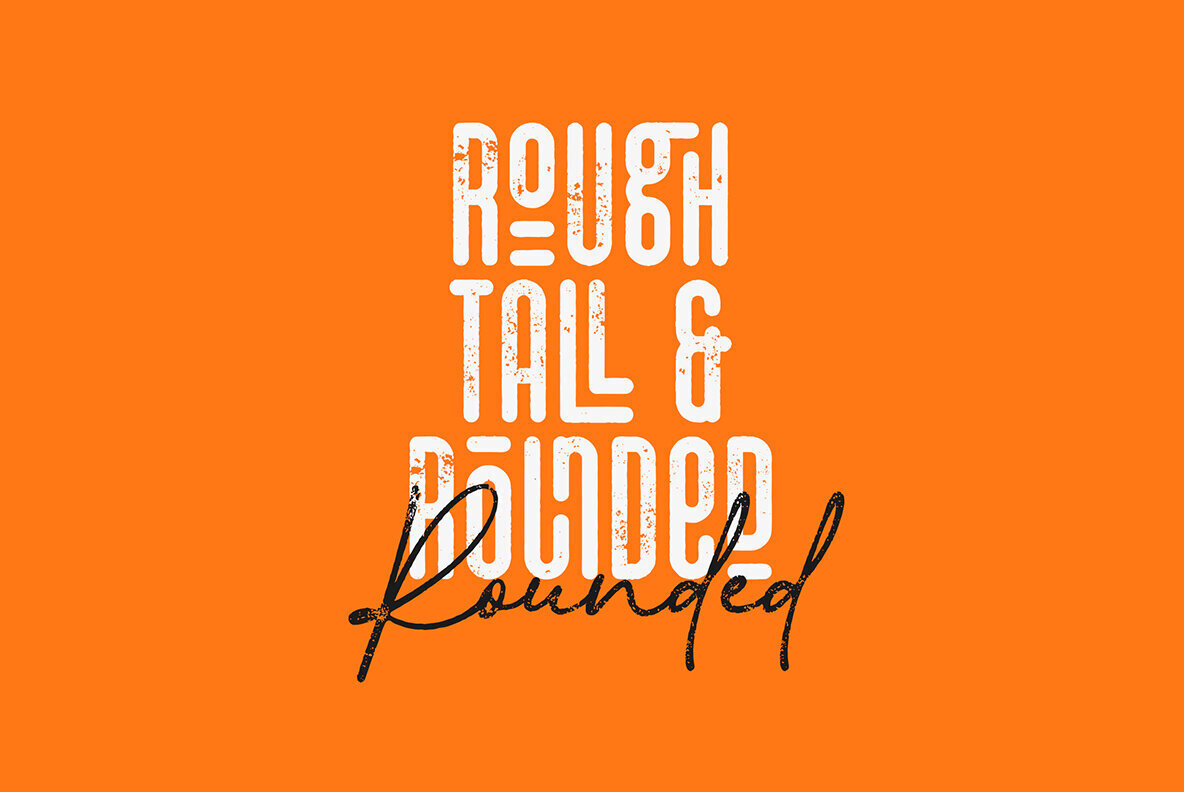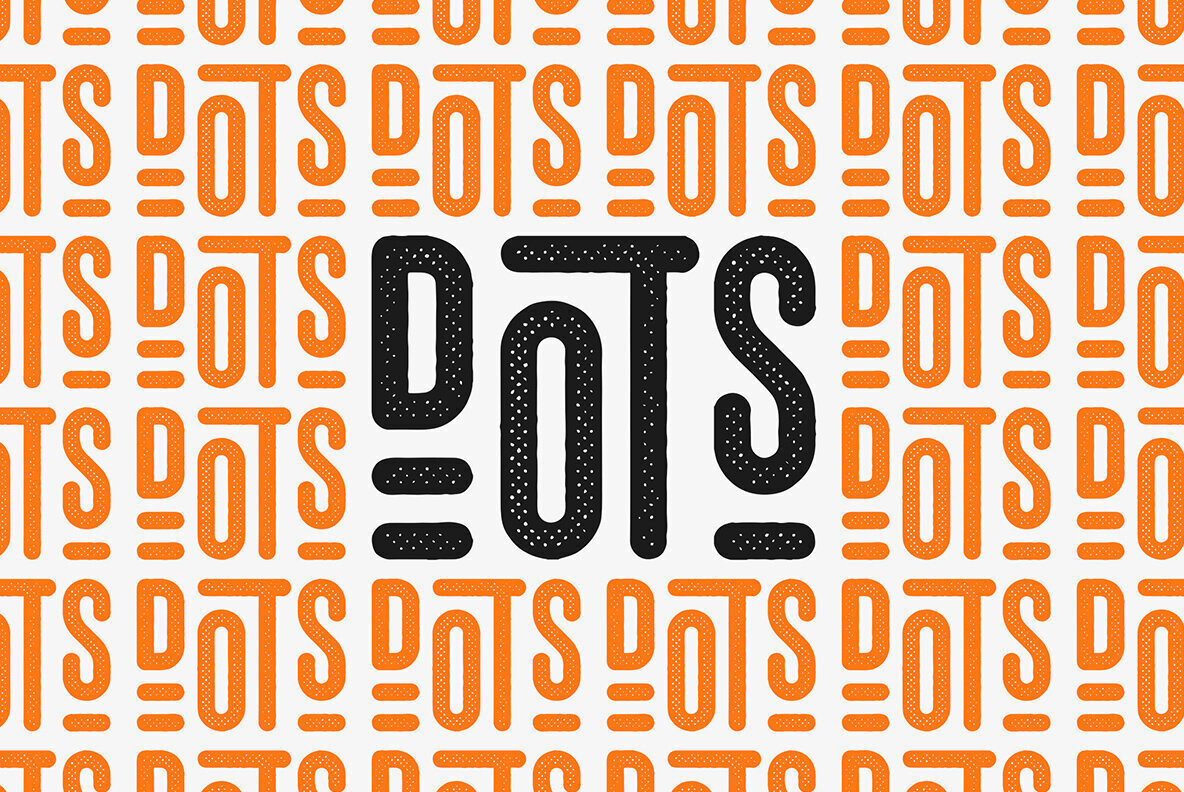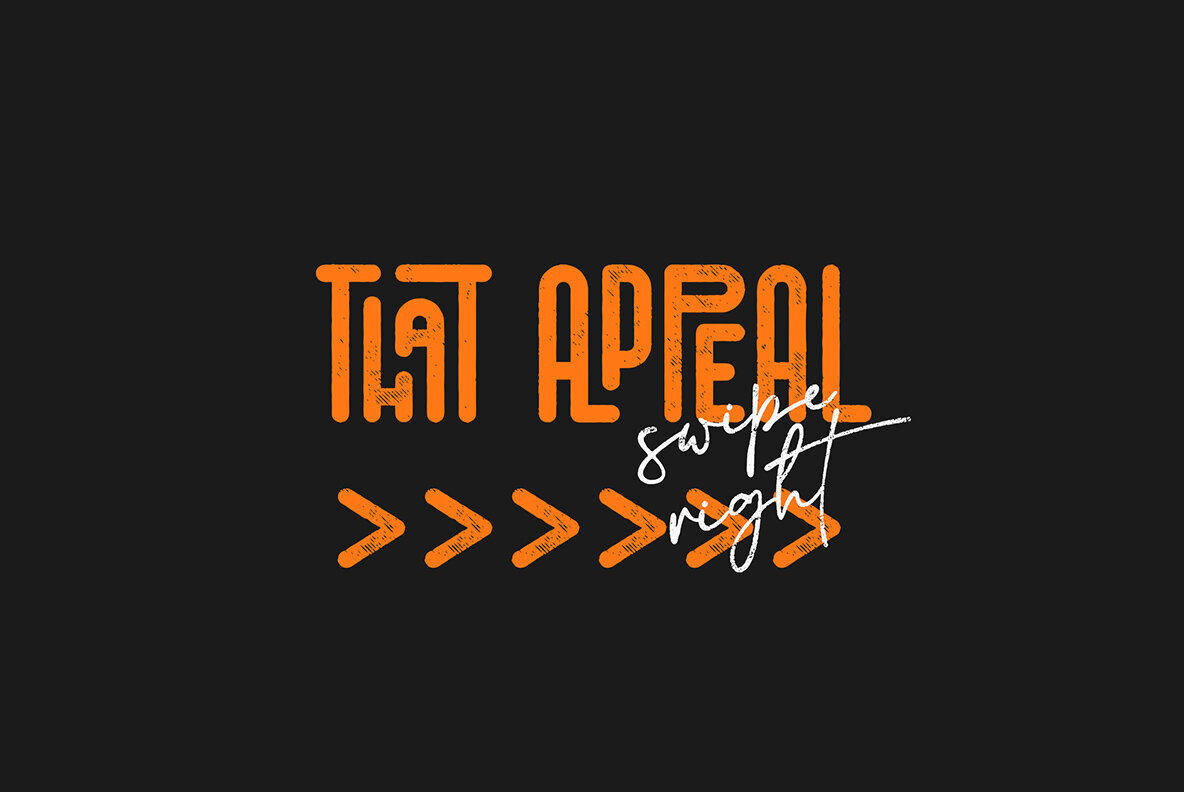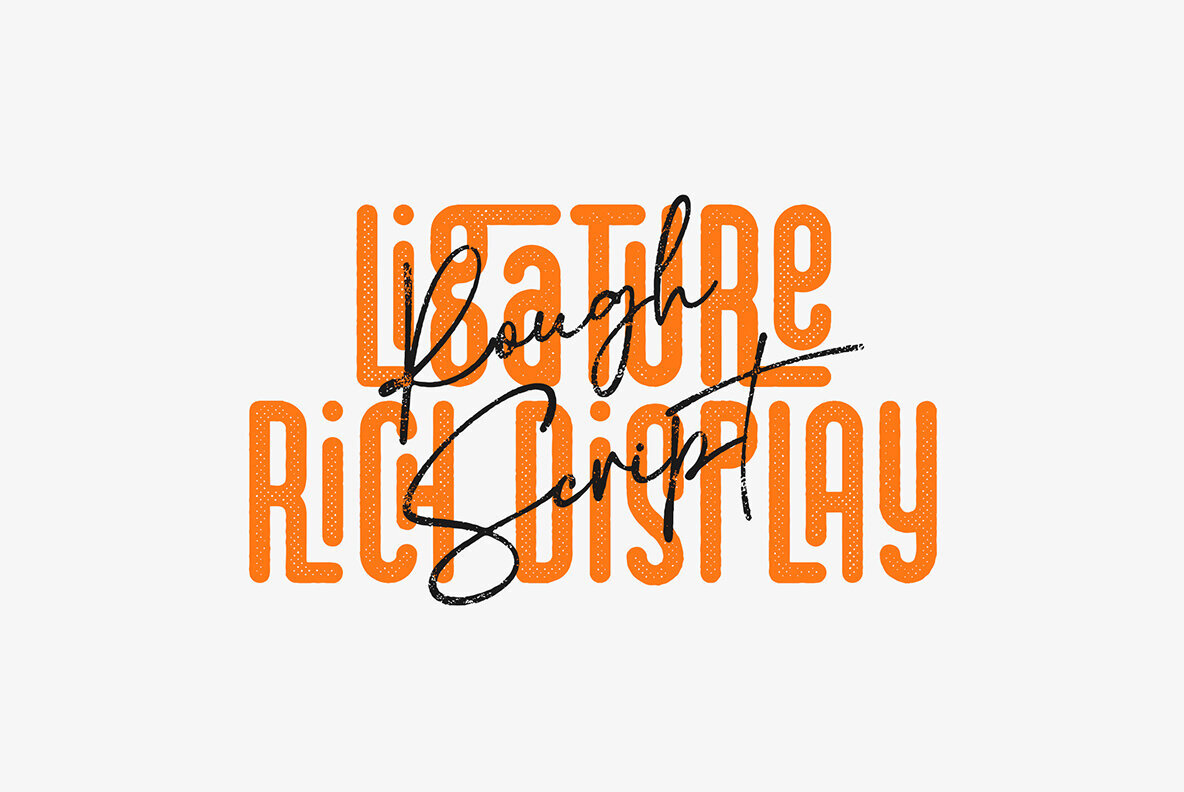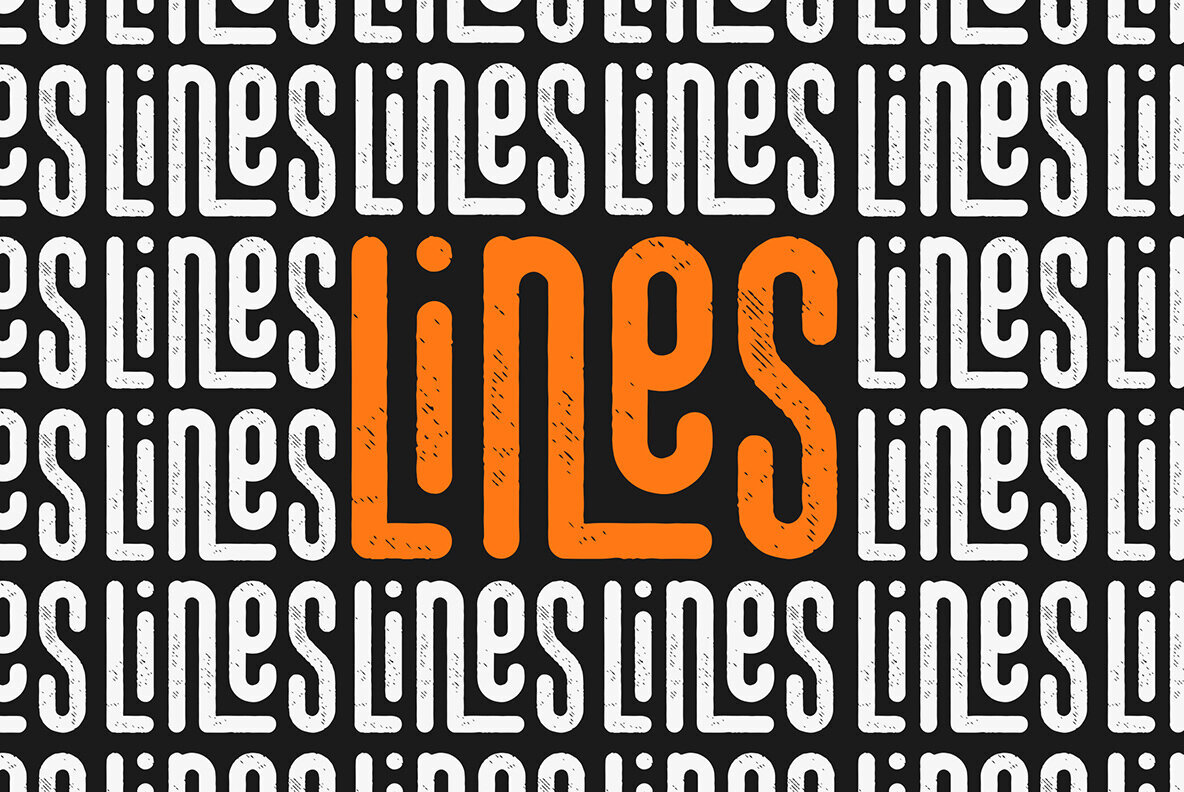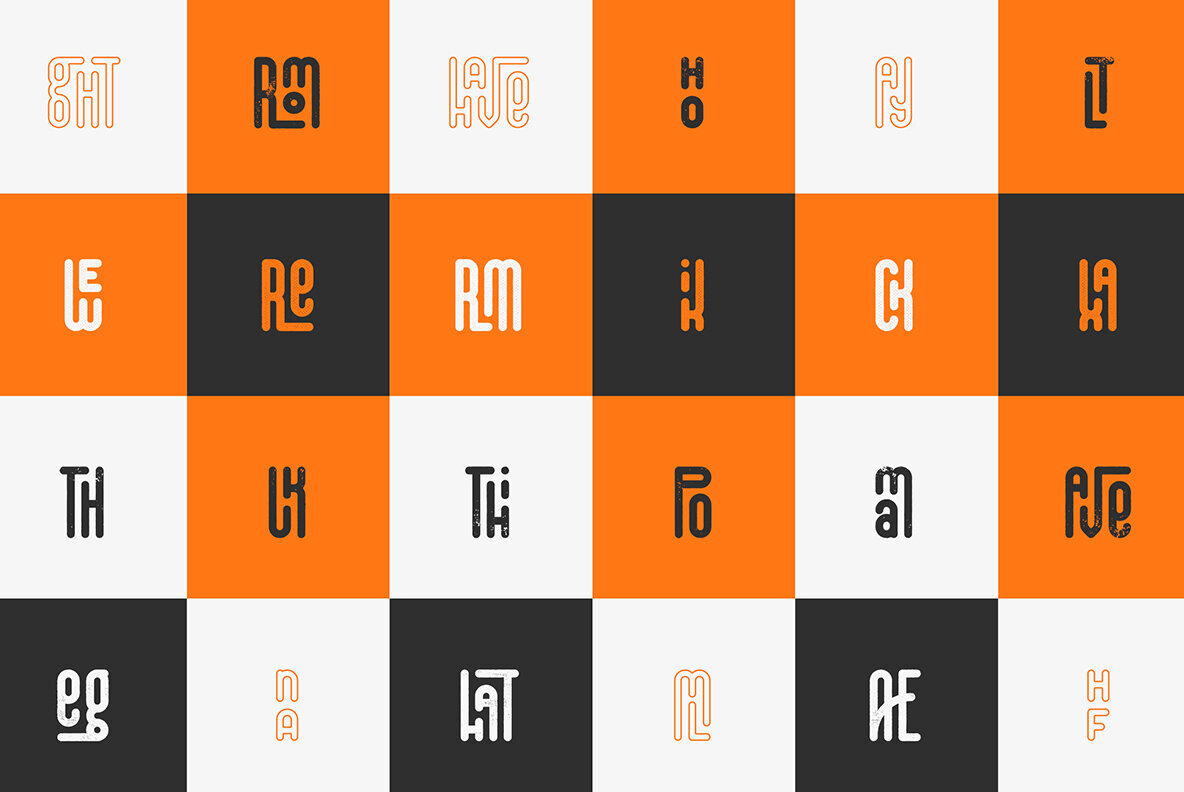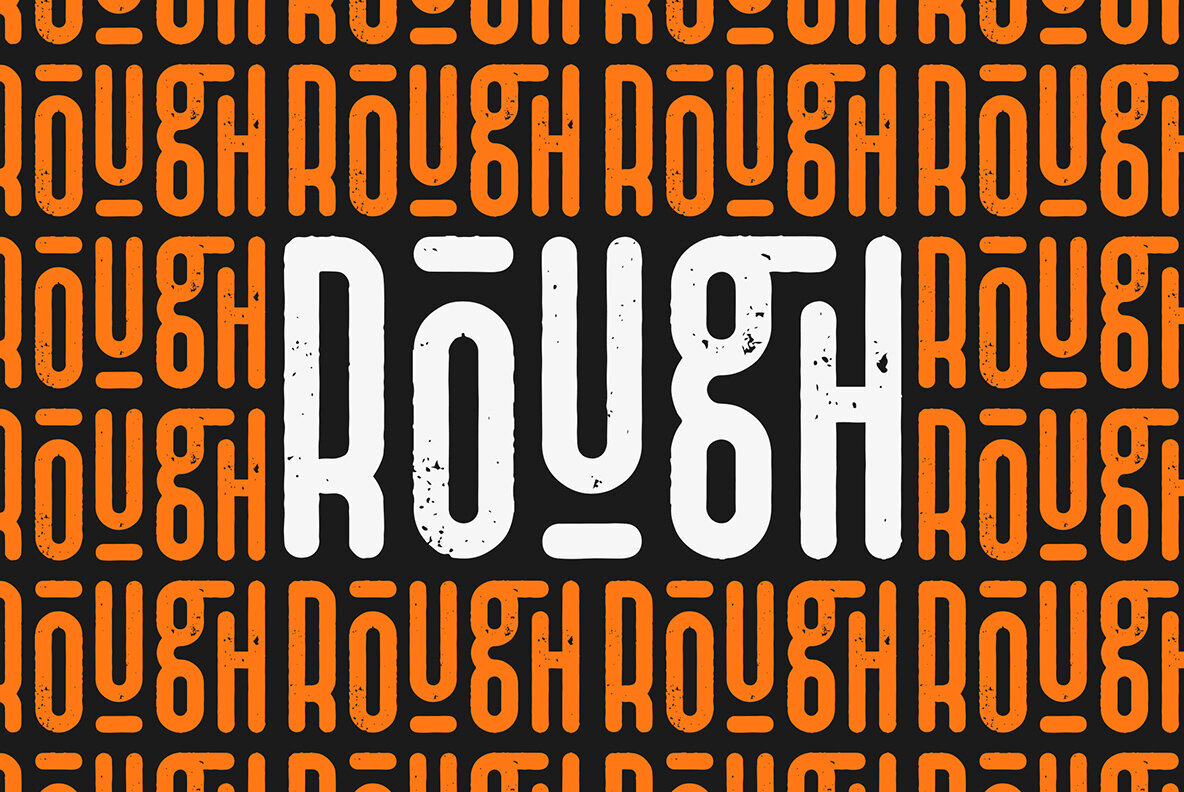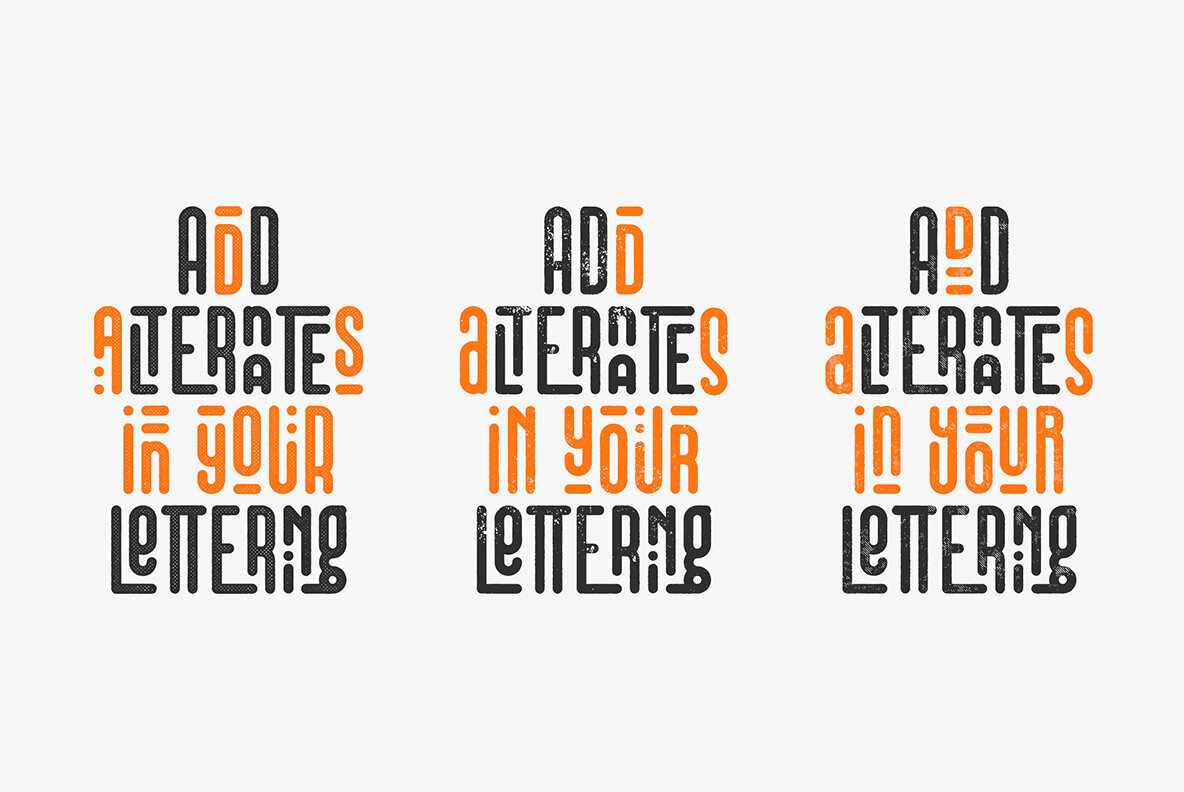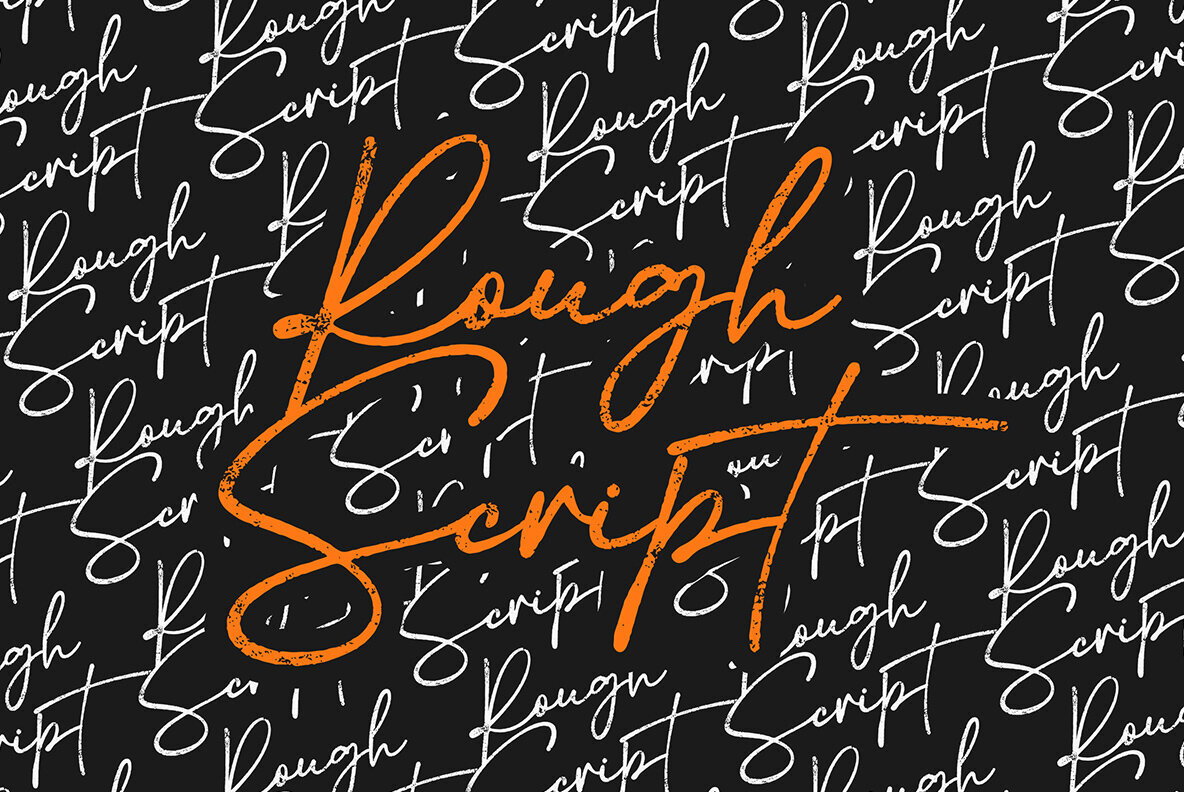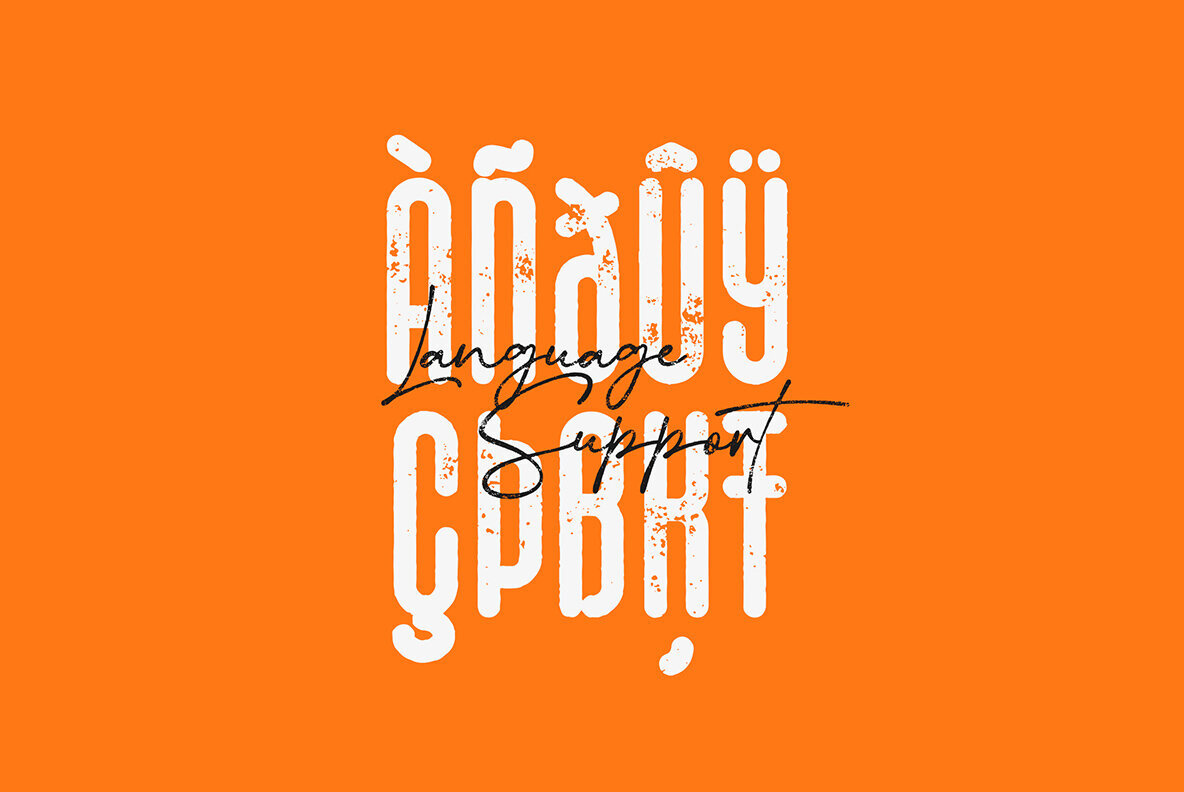
That Appeal inked edition Font
"That Appeal" is a captivating font duo that masterfully blends versatility and style, offering two complementary typefaces to enhance your creative projects. This font duo supports an impressive 87 languages, making it an inclusive choice for global or specific linguistic audience designs. To access alternate glyphs in Adobe InDesign or Illustrator, go to Window > Type & Tables > Glyphs. In Photoshop, access this feature under Window > Glyphs, and choose "Alternates for Selection" from the Show menu to see and select alternate glyphs. Mockups and backgrounds are not included. Thank you for choosing "That Appeal." Enjoy bringing your designs to life!That Appeal: Inked Edition Font Duo
Comprehensive Language Support
Extensive Ligature Collection